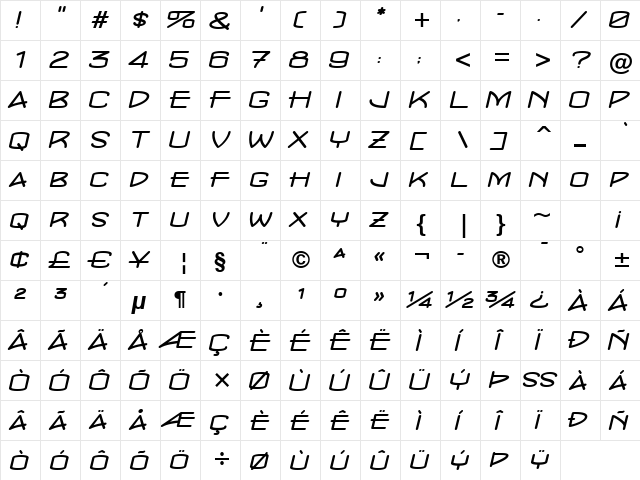
ConcursoModerne BTN Wide Oblique
Design Context for ConcursoModerne BTN Wide Typeface
ConcursoModerne BTN Wide offers clean, dependable letterforms without strong stylistic allegiance, making it a practical choice for designers who need flexibility. The dynamic lean of this cut emphasises speed and emphasis in any layout.
Pro Tip: Try ConcursoModerne BTN Wide for annotation and caption copy alongside an upright companion — the contrast in angle creates a dynamic but ordered typographic system.